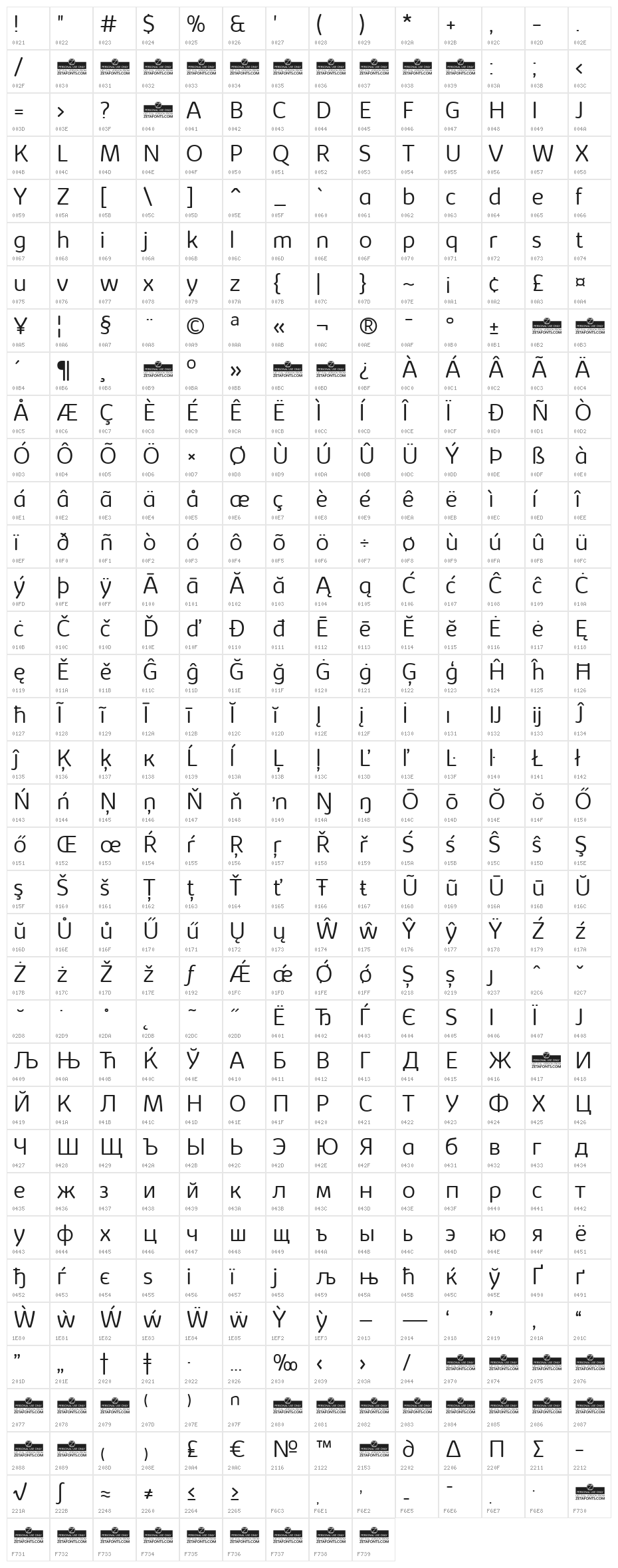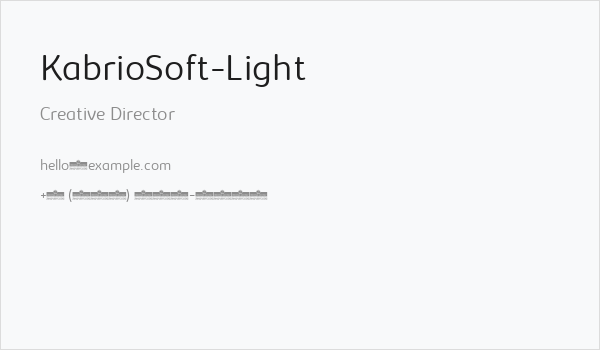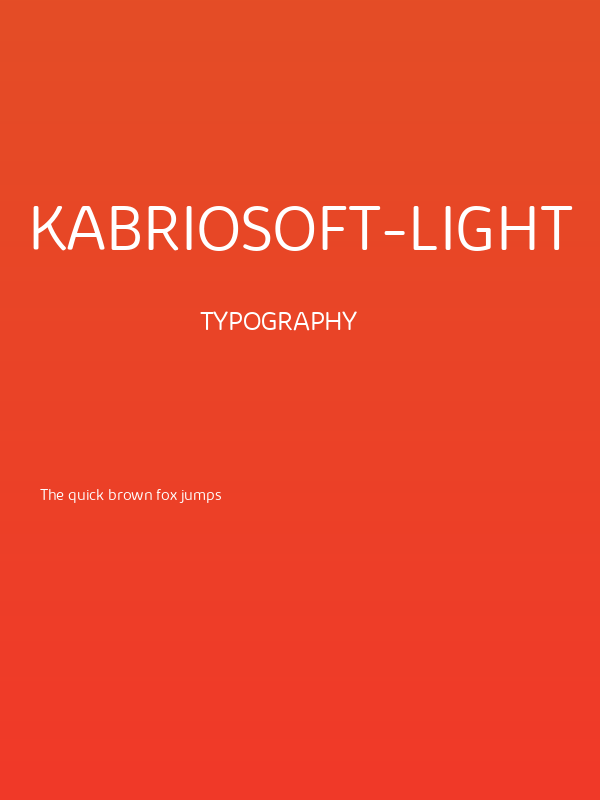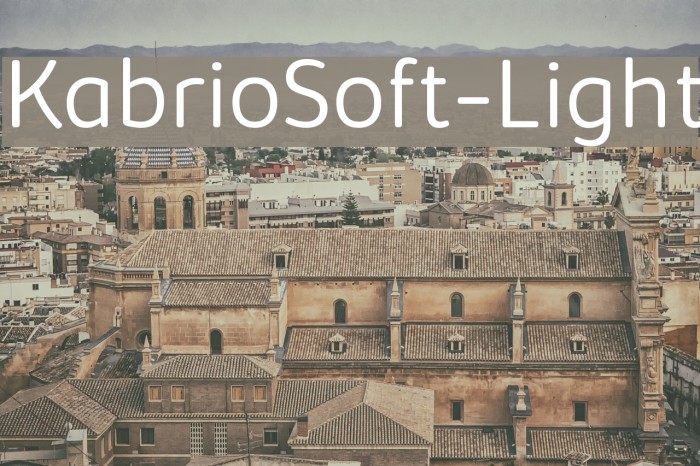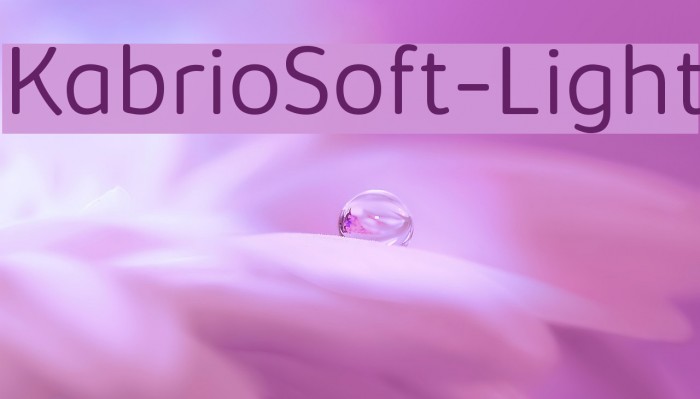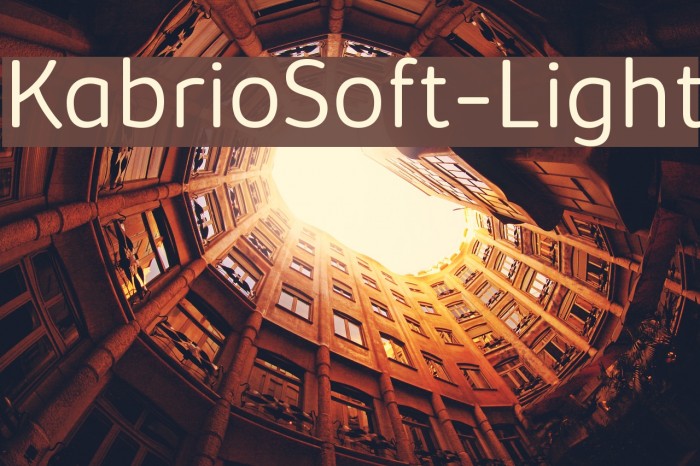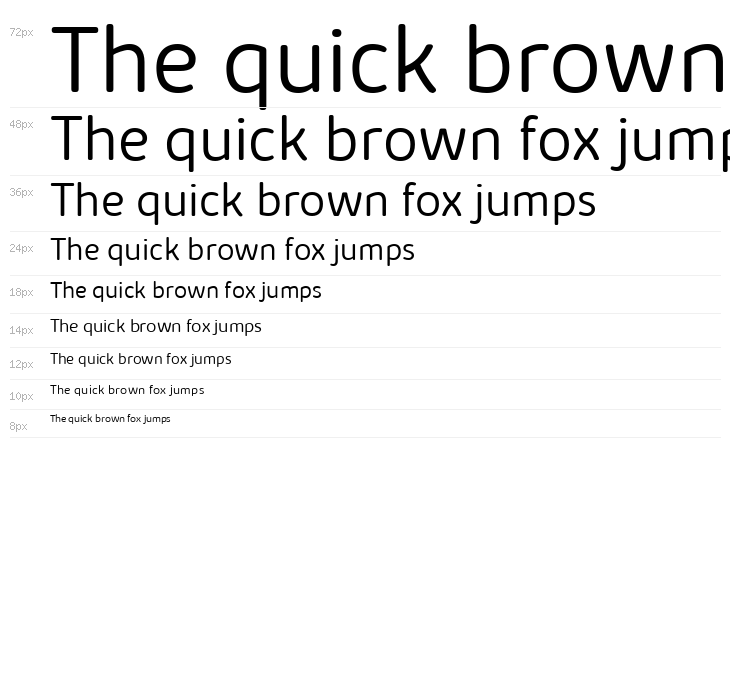
KabrioSoft-Light Font
KabrioSoft-Light Description
This typeface features a clean and modern sans-serif design with smooth curves and a uniform stroke width. The characters are well-proportioned, offering a harmonious and balanced appearance. The uppercase letters are slightly taller than the lowercase, providing a subtle distinction that enhances readability. The numerals and special characters maintain the same sleek and contemporary style, making them versatile for various applications. The overall design is minimalistic, with a focus on clarity and simplicity, which makes it suitable for both digital and print media.
| Proposed Projects | Ideal for branding, web design, user interfaces, and editorial layouts. |